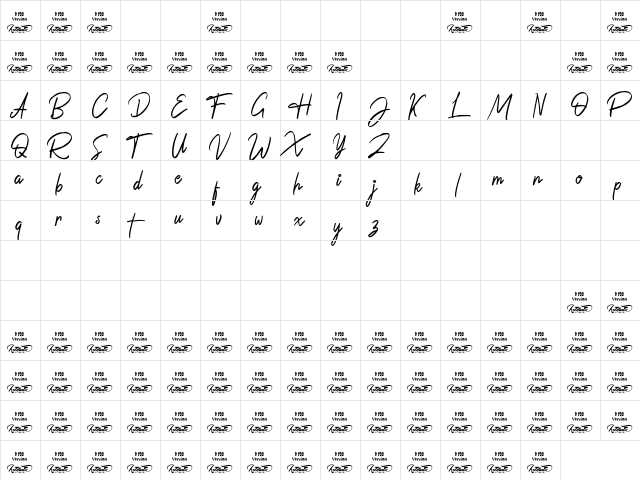
The Rich Jullietta DEMO Regular
| Designer | Fuad Hasan |
Design Context for The Rich Jullietta DEMO Typeface
The Rich Jullietta DEMO is a composed and adaptable typeface that performs quietly and consistently across a wide range of design contexts.